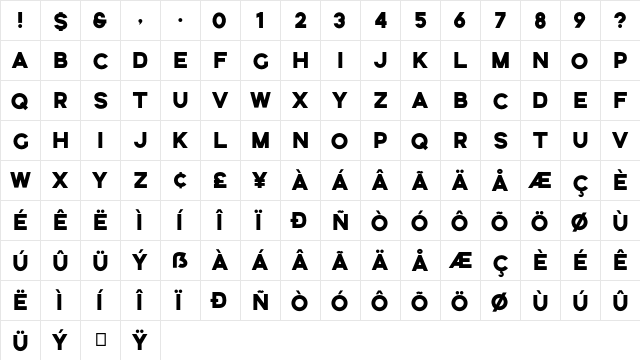
Silverstone Sans Sans
Design Context for Silverstone Sans Typeface
Silverstone Sans offers clean, dependable letterforms without strong stylistic allegiance, making it a practical choice for designers who need flexibility.
Pro Tip: Use Silverstone Sans in both headline and body roles to test its range before committing to a single application.